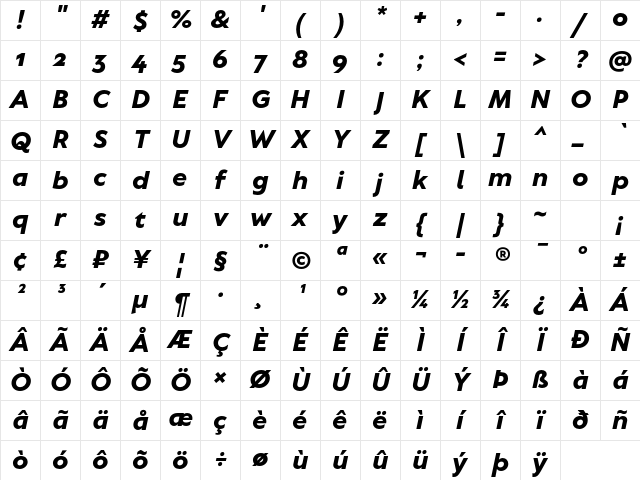
Complete TT Wellingtons Trl ExtraBold It glyph index. Displaying only characters natively supported by TT Wellingtons Trl ExtraBold It font.
TT Wellingtons Trl is a composed and adaptable typeface that performs quietly and consistently across a wide range of design contexts. Its bold stroke weight gives it real presence on the page.